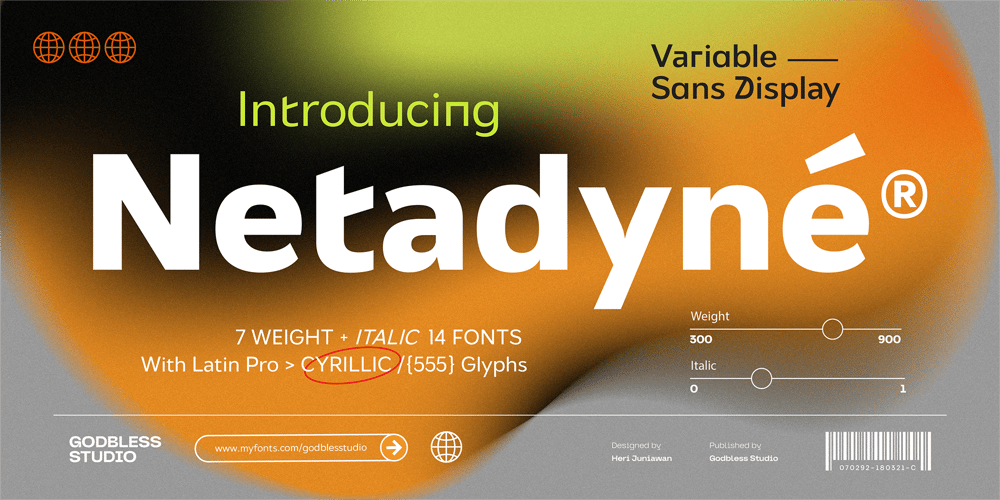
Netadyne Font Family was designed by Heri Juniawan and published by Godbless Studio. Netadyne contains 14 styles and family package options. Netadyne was created experimentally following a futuristic style recipe with characters made to keep up with today’s developments and also combined with various unique alternate variations to produce a font with a very charismatic and sturdy concept.Netadyne is a variable font that has 7 weights from light to black and also includes italic.Netadyne is a versatile font system, designed primarily for display uses with a need of visual impact.Feature :Uppercase & LowercaseAlternate CharacterLigatureDiscretionary LigatureMultilingual Support Latin & CyrillicNumeral & PunctuationetcWish you enjoy our font and if you have a question, don’t hesitate to drop a message & I’m happy to help.